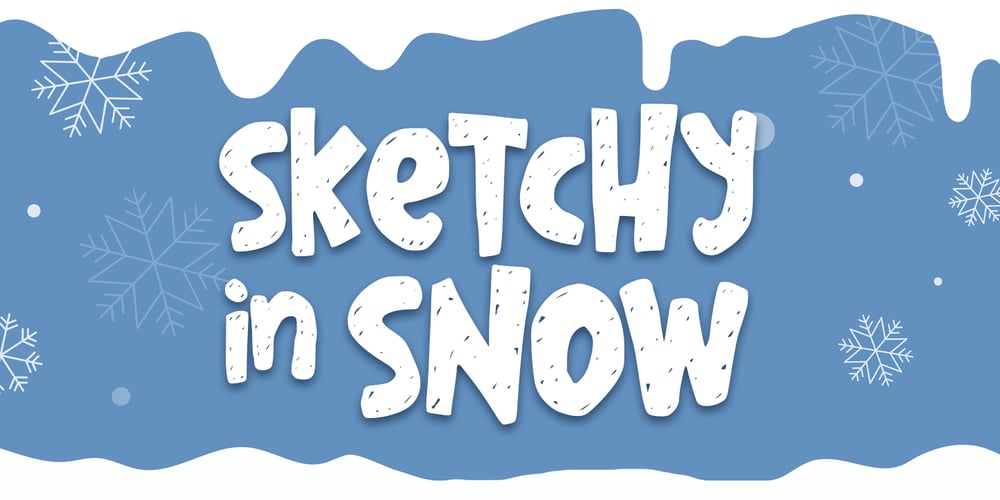
Sketchy in snow Font Family was designed by Abo Daniel and published by Abo Daniel. Sketchy in snow contains 1 styles and family package options. This font “SKETCHY IN SNOW” is so cute and playful.It is great for quotes, logo, branding, packaging, t-shirt design, cover kids book, tote bag design, social media and anything your projectBoth uppercase and lowercase are match perfectly. You can combined them as you like.Features: Uppercase Lowercase Number & Punctuations International Accent PUA Encoded